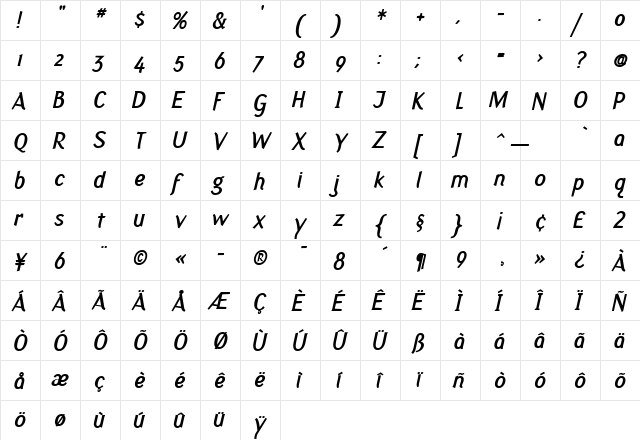
Fasciani-Senza Italic
Design Context for Fasciani-Senza Typeface
Fasciani-Senza is a composed and adaptable typeface that performs quietly and consistently across a wide range of design contexts. The dynamic lean of this cut emphasises speed and emphasis in any layout.
Pro Tip: Use Fasciani-Senza for emphasis, pull quotes, and subheadings where its slanted energy can add rhythm to the layout.